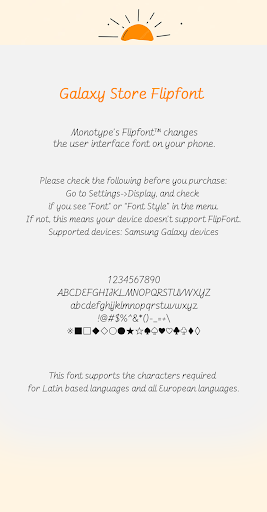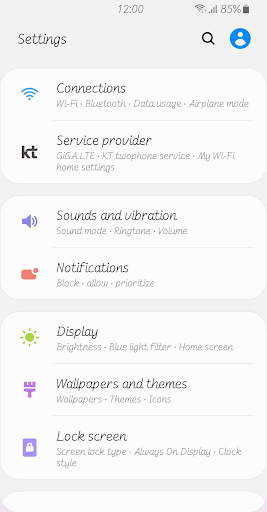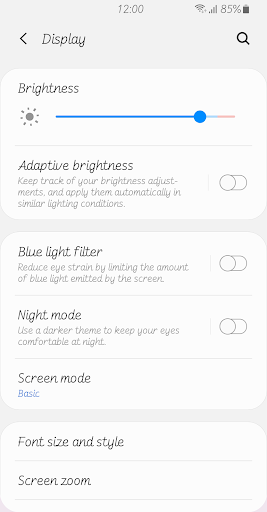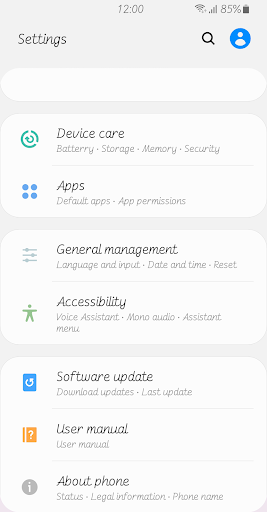
Fine Newdays
It is a handwriting style font with little change in stroke thickness.
Smooth curves and uniform sizes provide a stable and comfortable appearance.
The liveliness felt in the tilted form and the change in shape provide fresh and new pleasure.